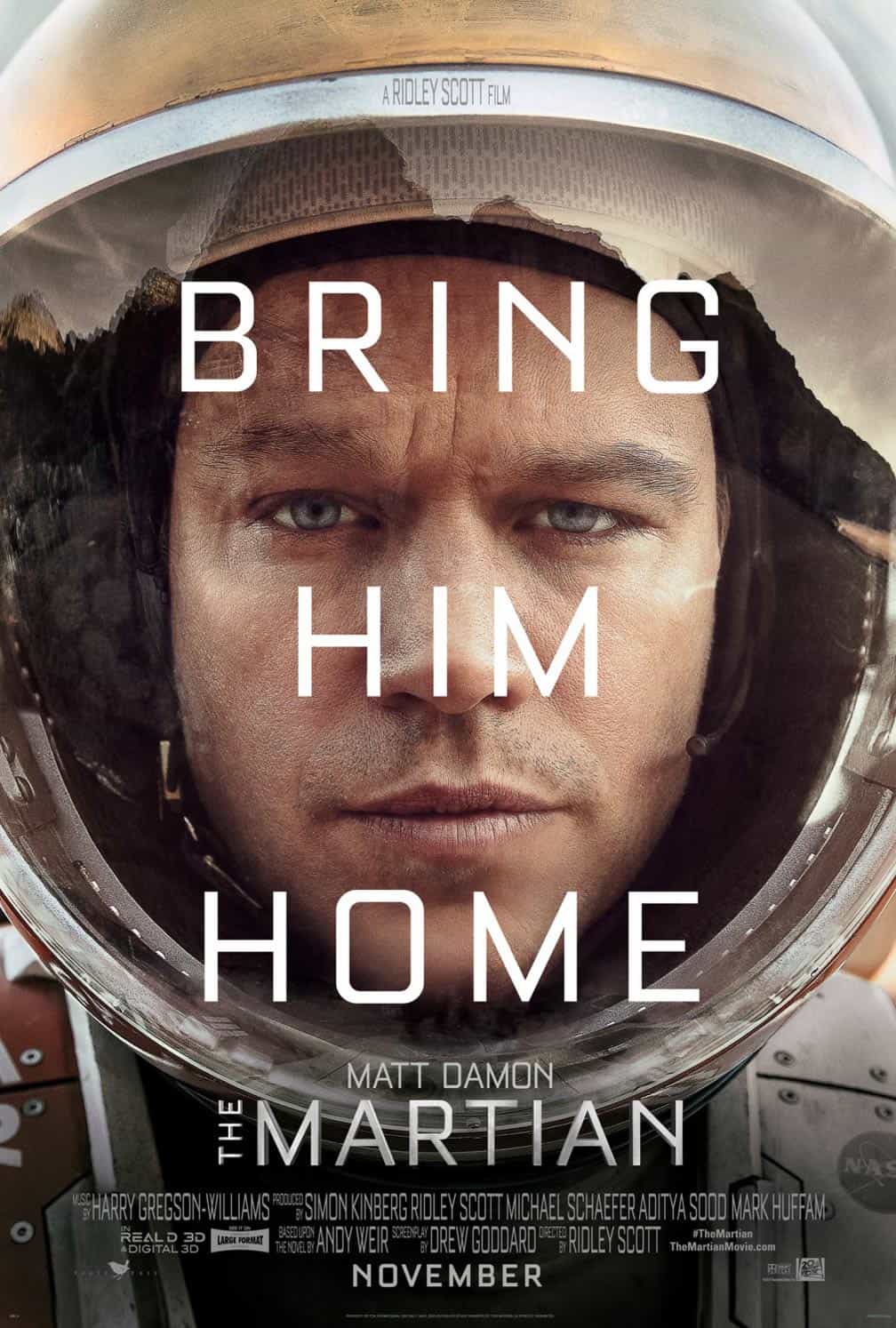
The Martian (Film) Font
Fonts in UseThe Martian is a 2015 science fiction film directed by Ridley Scott, starring Matt Damon as an astronaut who is stranded on Mars and must use his knowledge and resourcefulness to survive and find a way back to Earth. The film is based on the novel of the same name by Andy Weir.
The poster's film title employs the Bourgeois Medium font, a geometric sans serif created by Jonathan Barnbrook and Marcus Leis Allion, and published by Virus Fonts. More details about the font family are available here.